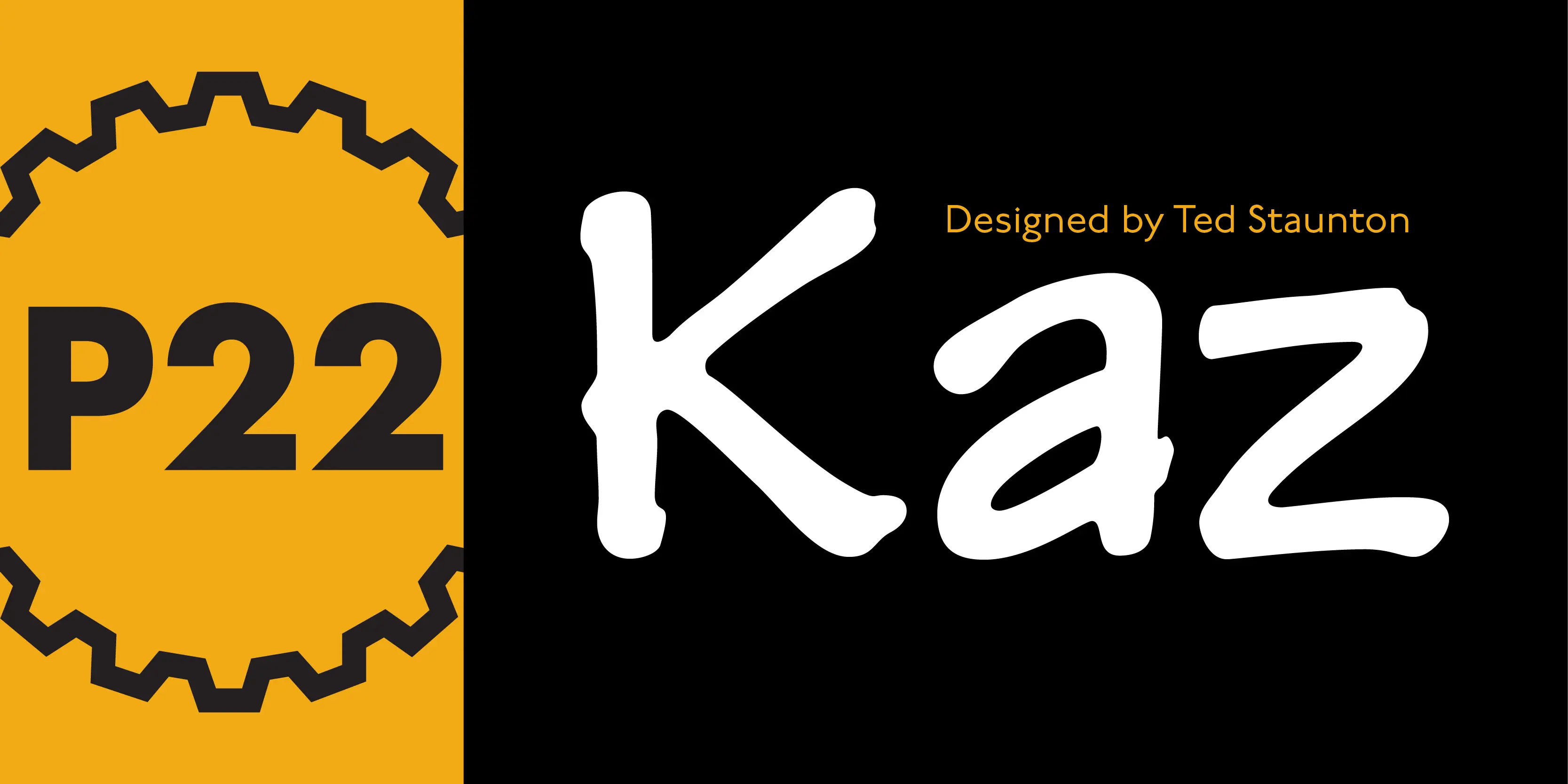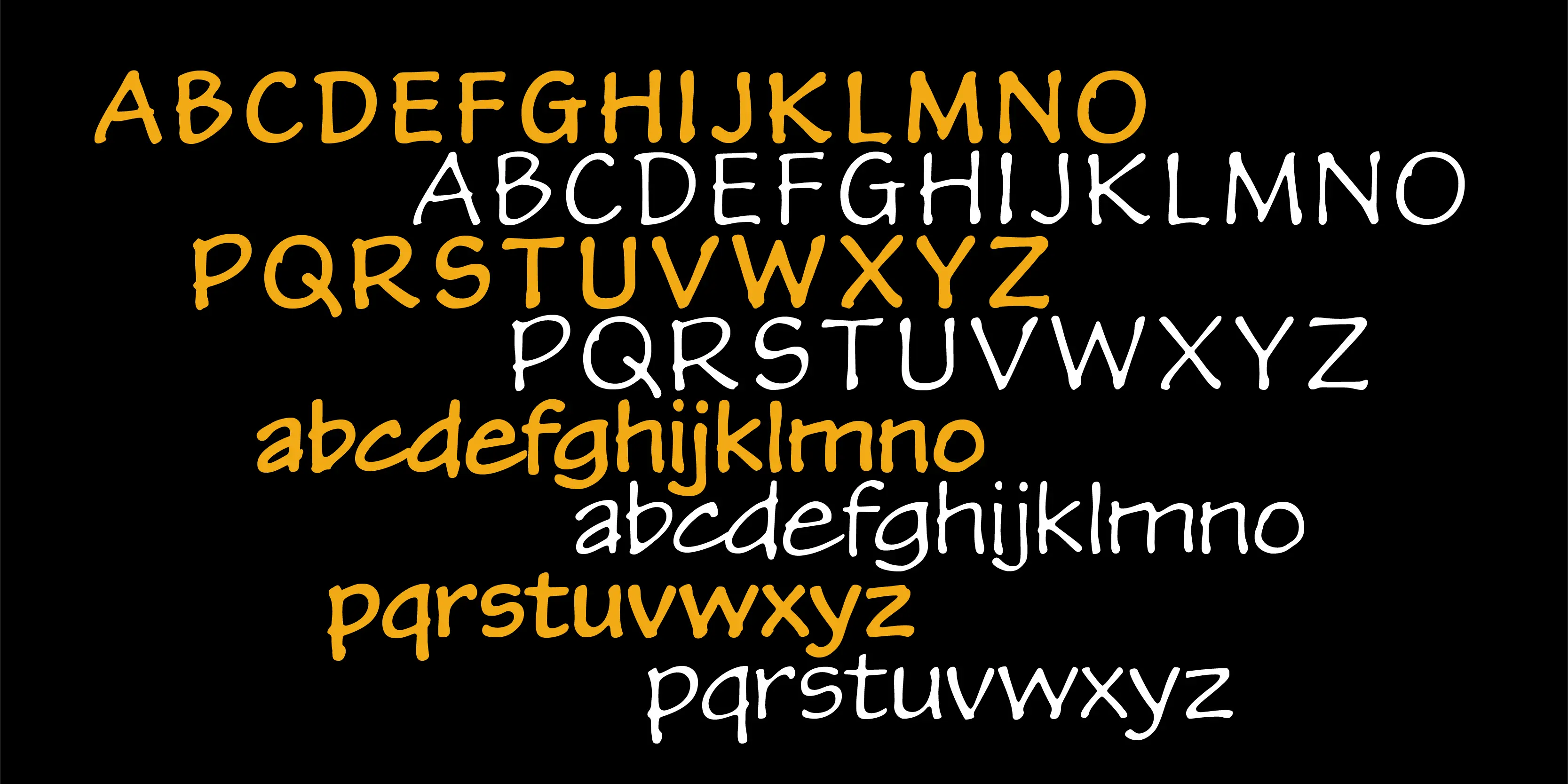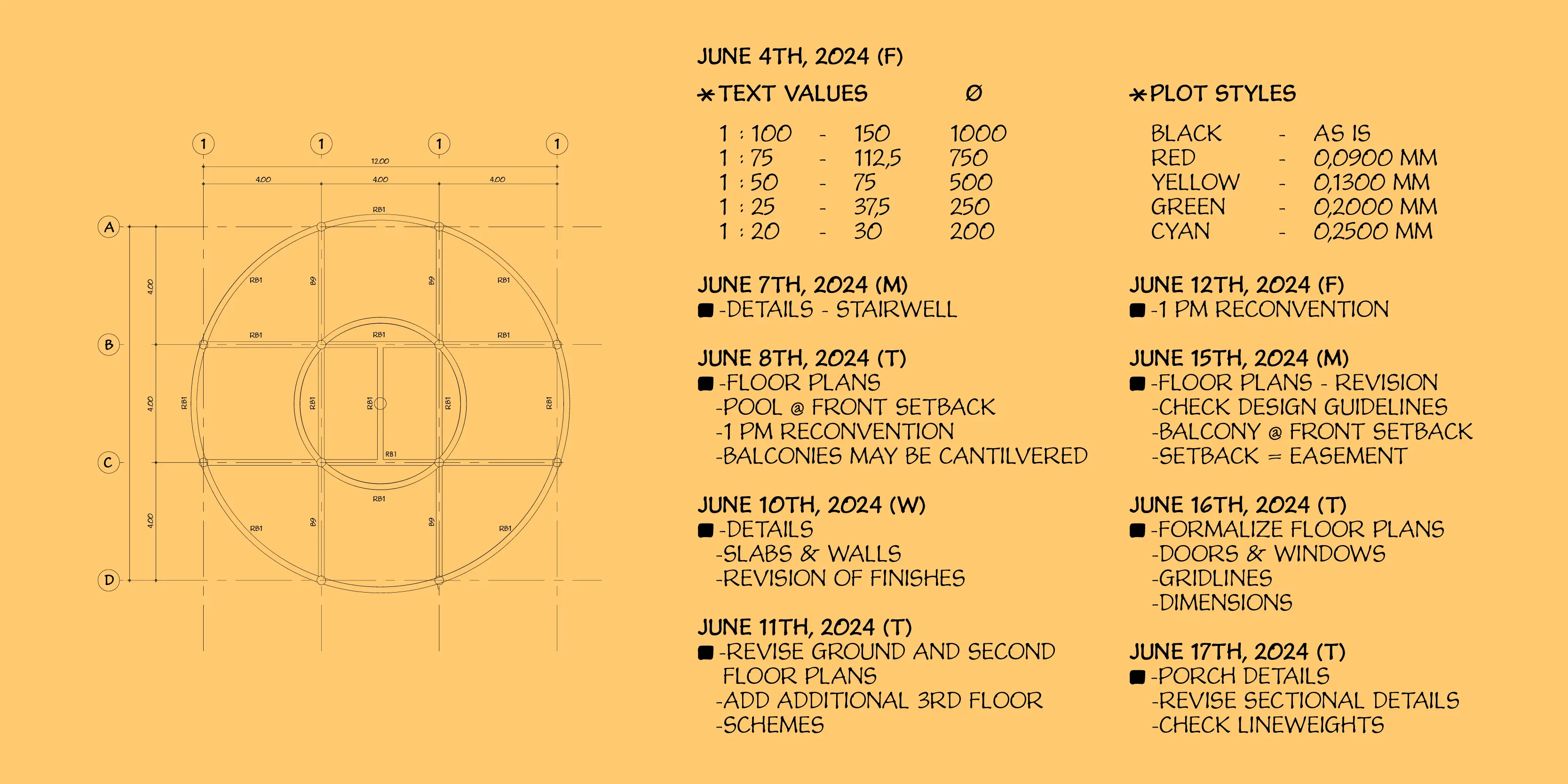
Kaz Font Family
• Kaz Thin
• Kaz Regular
Kaz
Kaz is a casual yet sturdy Script lettering font somewhere between architectural Script lettering and “comic sans.” Kaz Thin offers a variation for the look of a thinner pen.
• Fractions
• Lining Numerals
• Old Style Numerals
• Ornaments
• Proportional Numerals
• Small Capitals
• Small Capitals for Capitals
• Subscript
• Superscript
• Swashes
• Tabular Numerals